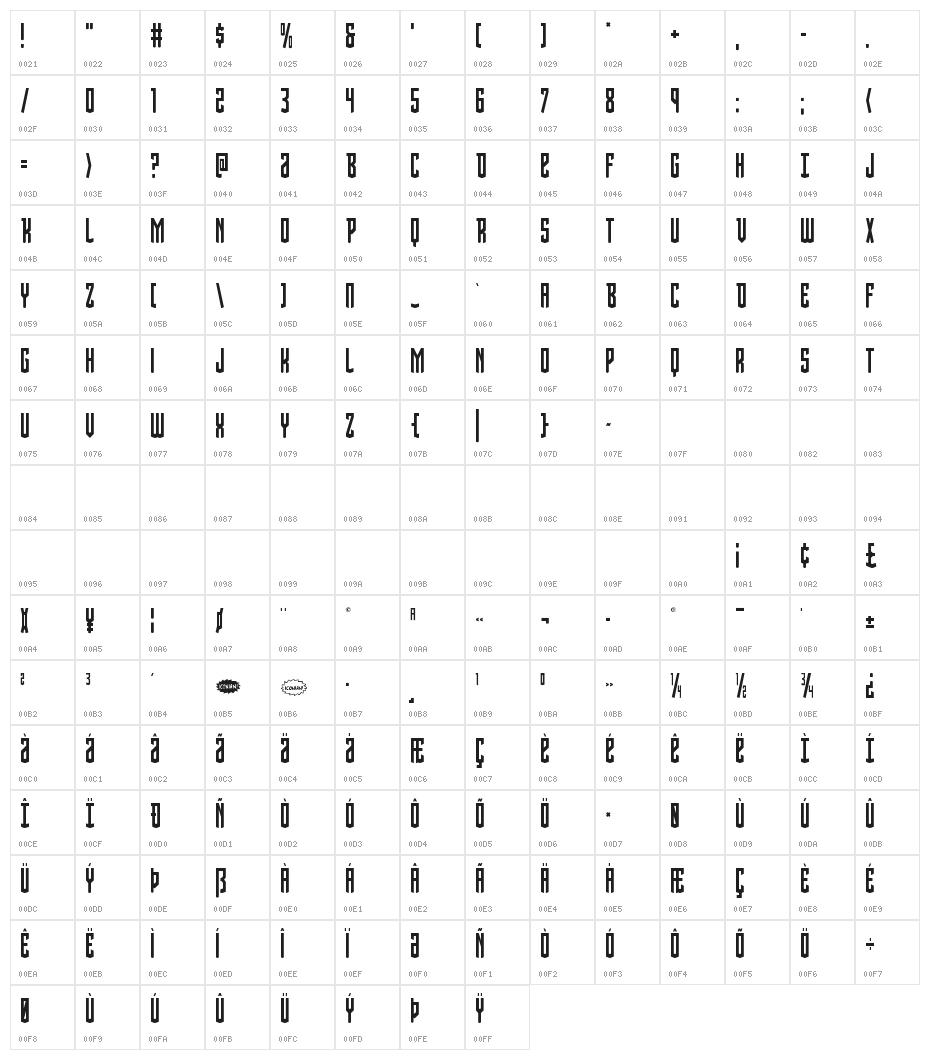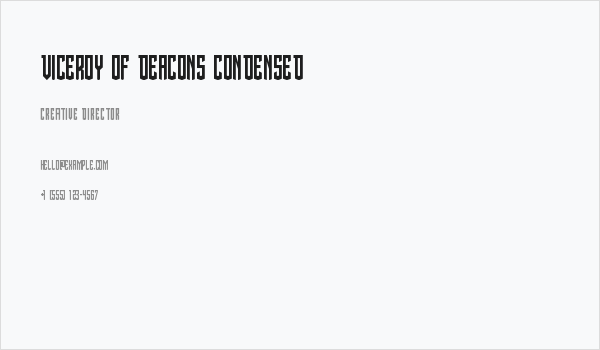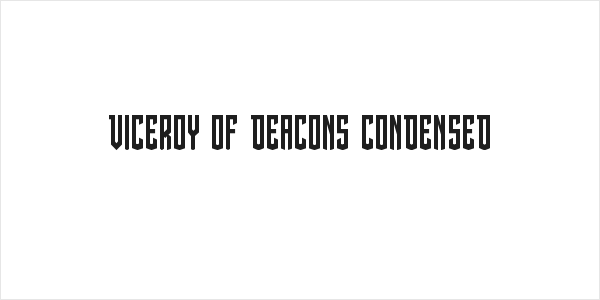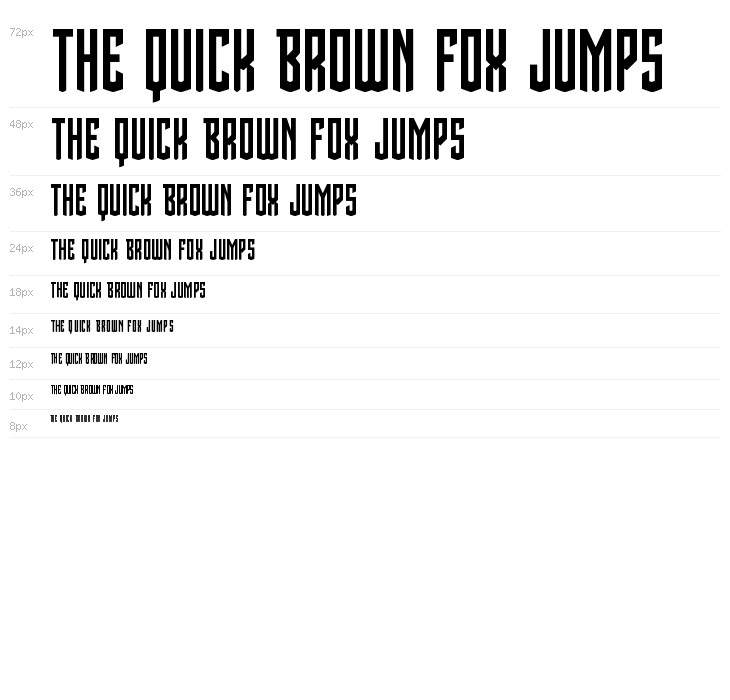
Viceroy of Deacons Condensed Font
Viceroy of Deacons Condensed Description
This font features a bold and condensed style with a strong geometric influence. The characters are tall and narrow, creating a striking and impactful appearance. The uppercase letters are particularly prominent, with sharp angles and a modern aesthetic. The numbers and special characters maintain the same boldness, ensuring consistency across all elements. This font's design is both contemporary and assertive, making it suitable for attention-grabbing headlines and titles.